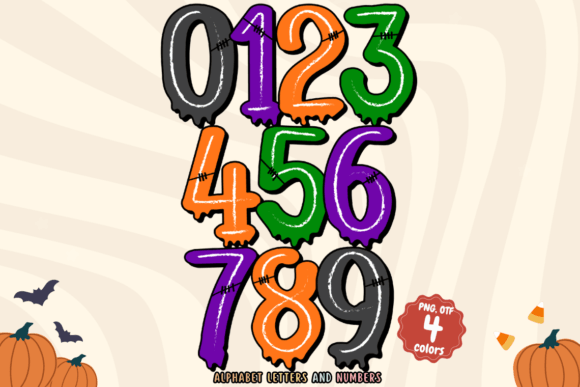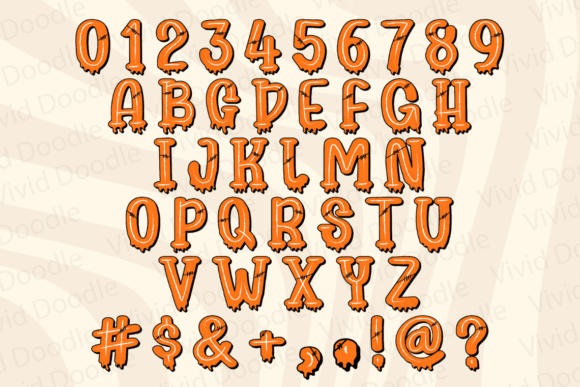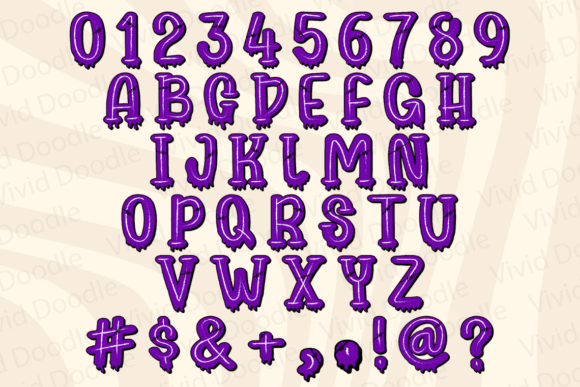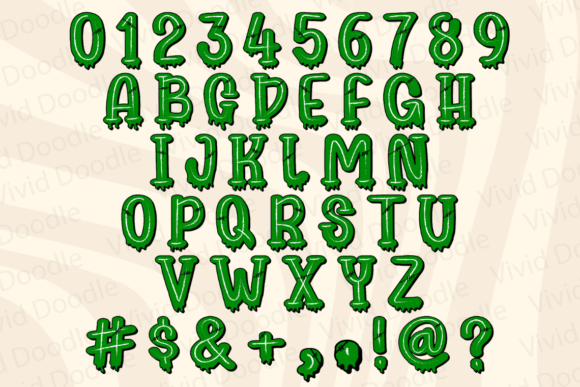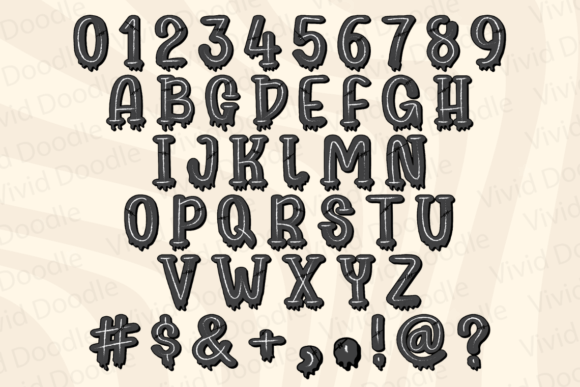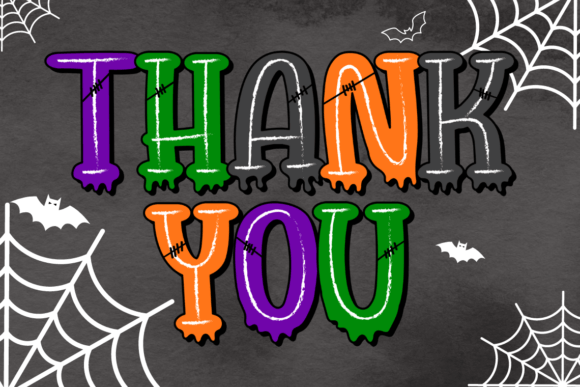
Introducing Halloween Candy Font: Add a Sweet and Festive Touch to Your Autumn and Halloween Projects
Are you looking for a font that captures the fun and excitement of Halloween? Look no further than Halloween Candy Font! This playful and vibrant handwritten font is perfect for adding a sweet and festive touch to all your autumn and Halloween-themed projects. Whether you’re designing for school projects, creative art activities, or holiday decorations, Halloween Candy brings a burst of color and whimsy to your work.
What Makes Halloween Candy Font So Special?
Halloween Candy Font is a bold and playful font that’s specifically designed to evoke the spirit of Halloween. Its lively style and Halloween flair make it a must-have for anyone looking to enhance their fall and holiday designs. The font’s playful and vibrant design makes it perfect for creating eye-catching posters, party invitations, seasonal greeting cards, and more.
Use Halloween Candy Font for a Variety of Projects
Halloween Candy Font is incredibly versatile and can be used for a wide range of projects, including:
- School projects: Add a fun and festive touch to your school projects, such as presentations, reports, and posters.
- Creative art activities: Use Halloween Candy Font to add a playful touch to your art projects, such as paintings, drawings, and collages.
- Holiday decorations: Create eye-catching holiday decorations, such as signs, banners, and garlands, with Halloween Candy Font.
- Party invitations: Design fun and festive party invitations that will set the tone for your Halloween party.
- Seasonal greeting cards: Create personalized seasonal greeting cards that will delight your friends and family.
Why Choose Halloween Candy Font?
There are many reasons why Halloween Candy Font is the perfect choice for your autumn and Halloween-themed projects. Here are just a few:
- Unique and playful design: Halloween Candy Font has a unique and playful design that’s sure to stand out.
- Bold and vibrant: The font’s bold and vibrant design makes it perfect for creating eye-catching projects.
Get Ready to Add a Sweet and Festive Touch to Your Projects
If you’re looking for a font that will add a sweet and festive touch to your autumn and Halloween-themed projects, look no further than Halloween Candy Font. With its playful and vibrant design, bold and vibrant style, and compatibility with a range of software, this font is sure to be a hit with designers and crafters alike. So why wait? Download Halloween Candy Font today and get ready to add a burst of color and whimsy to your work!
In conclusion, Halloween Candy Font is a must-have for anyone looking to add a sweet and festive touch to their autumn and Halloween-themed projects. With its unique and playful design, bold and vibrant style, and compatibility with a range of software, this font is perfect for designers and crafters of all levels. So why wait? Download Halloween Candy Font today and start creating eye-catching projects that will delight your friends and family!